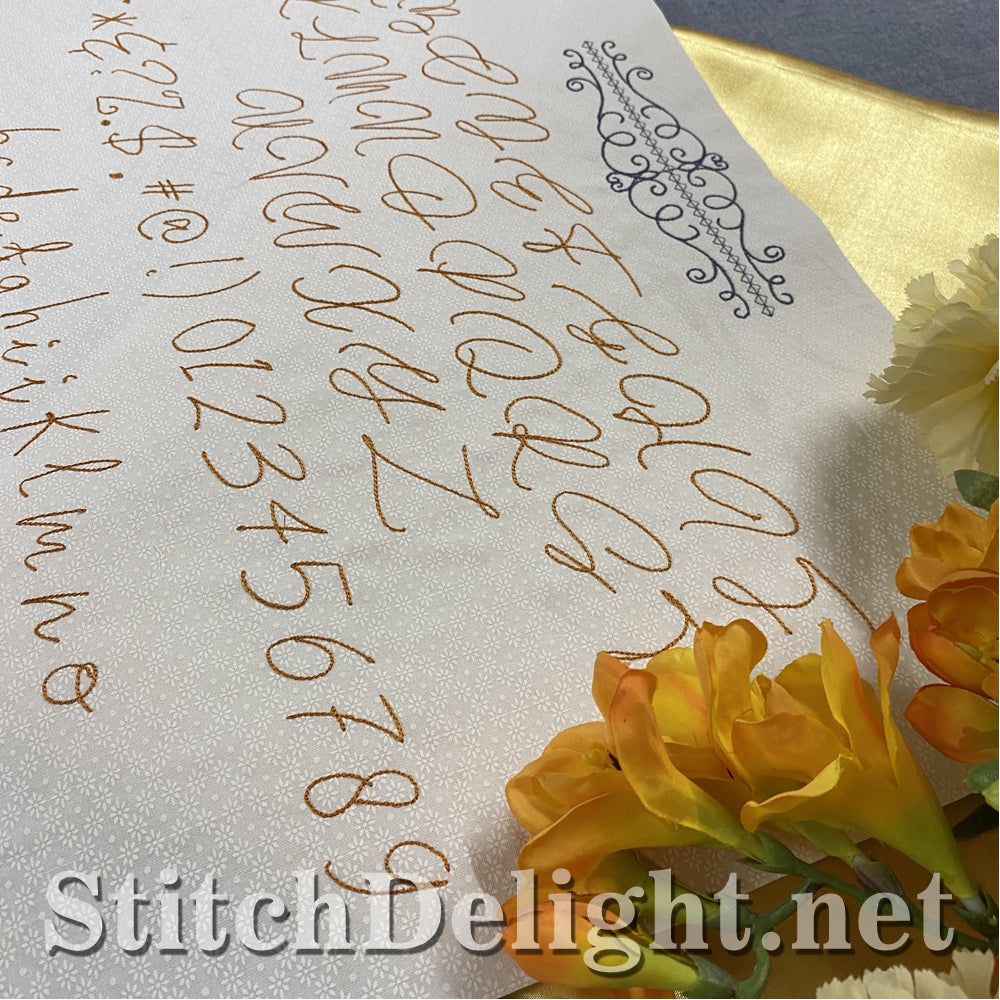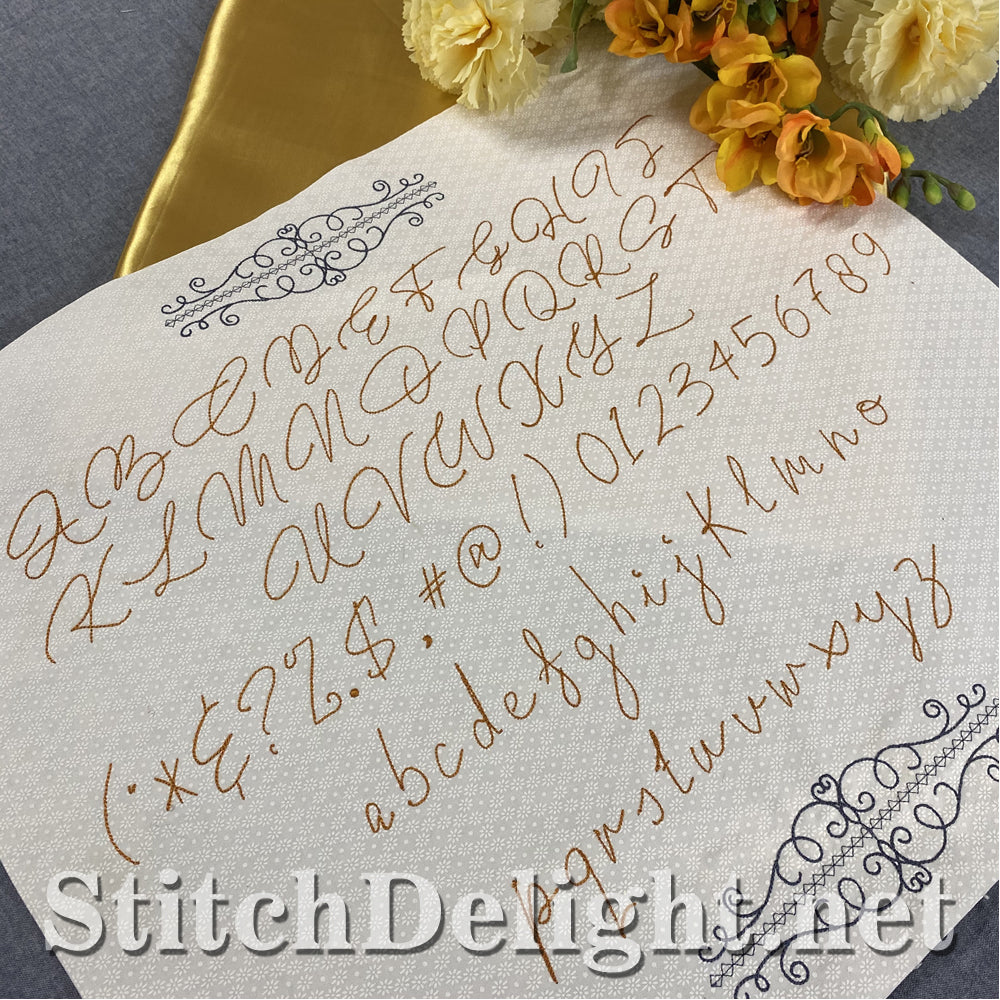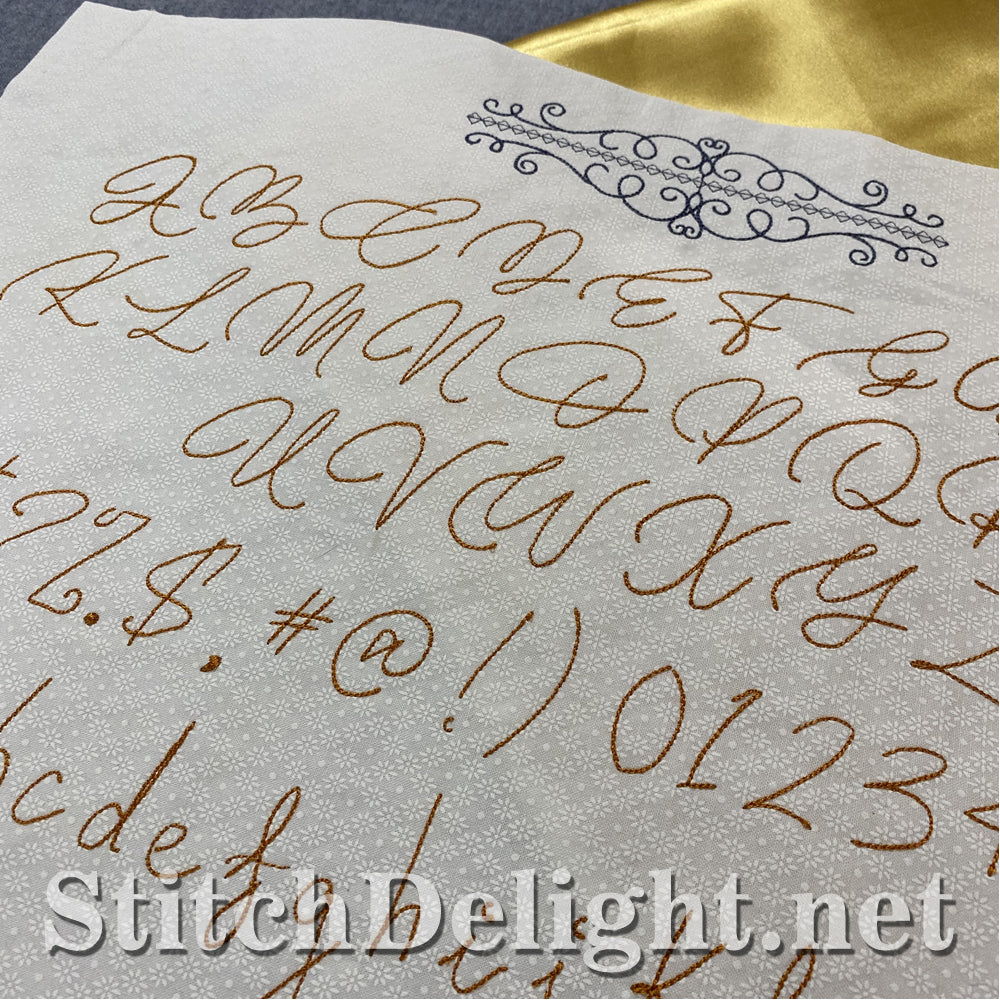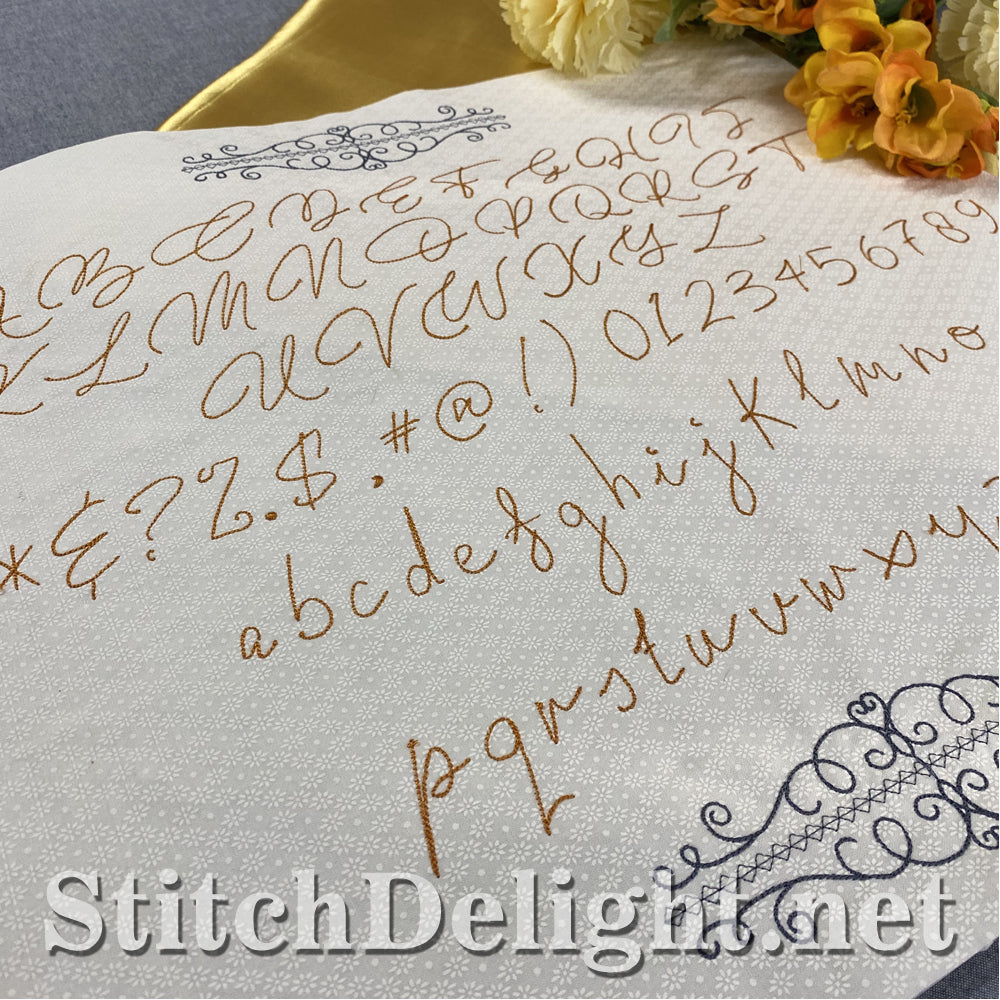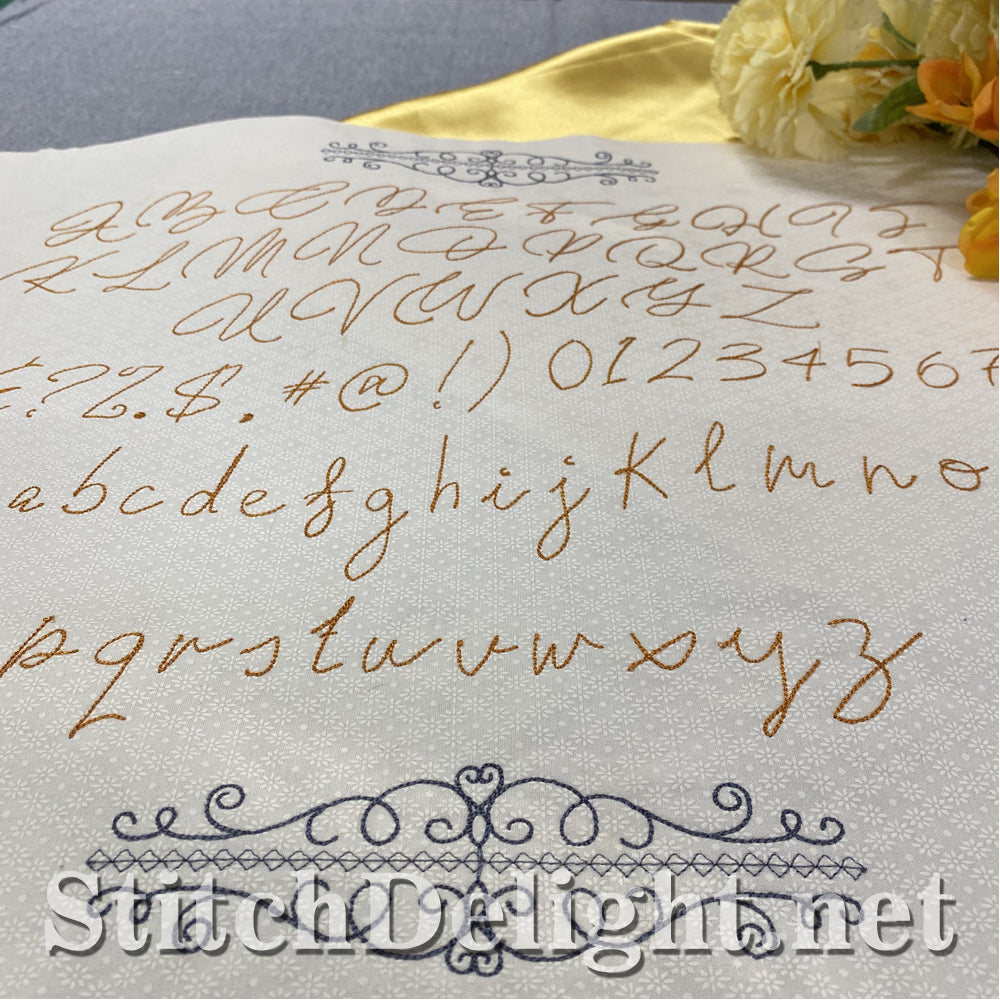
HOE0082 Love letter Font
This romantic font has an average height of just 1.25" for the uppercase letters and a mere 0.75" for lowercase letters making it the perfect font to add small detail on that special gift on valentines day and birthdays. Easily type out this Love Letter Font using the BX format in Embrilliance Software. Checkout the design sizes PDF below.